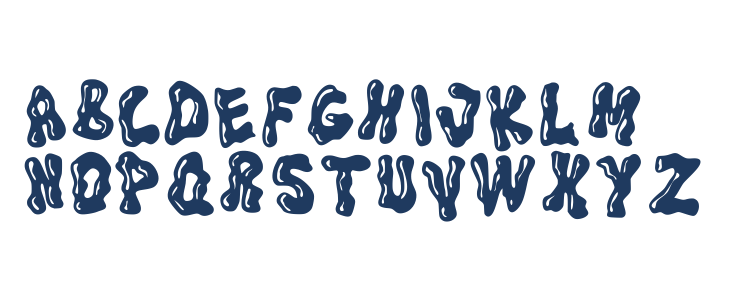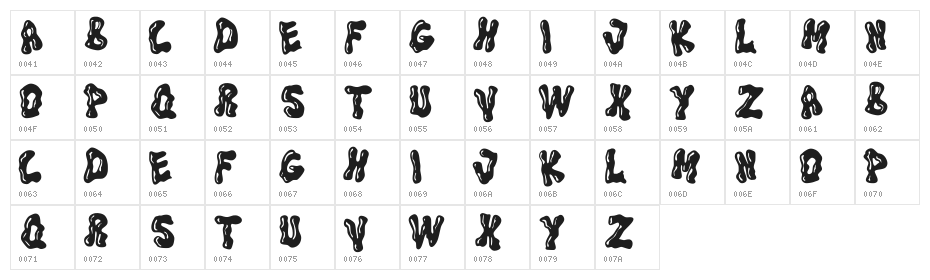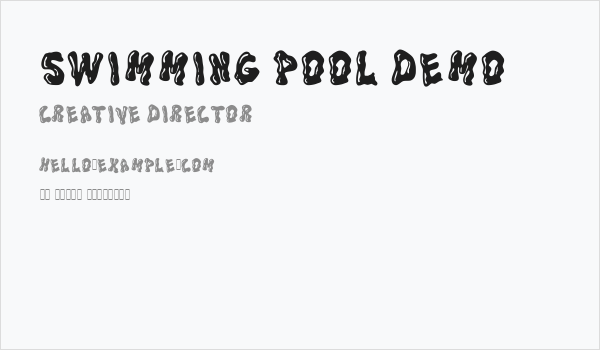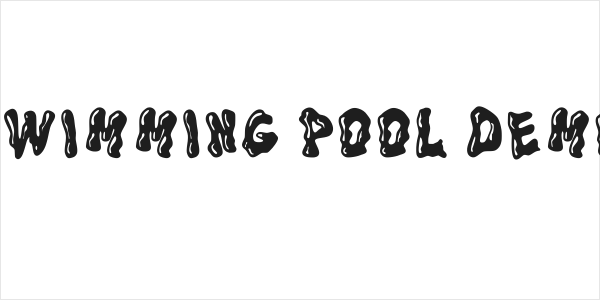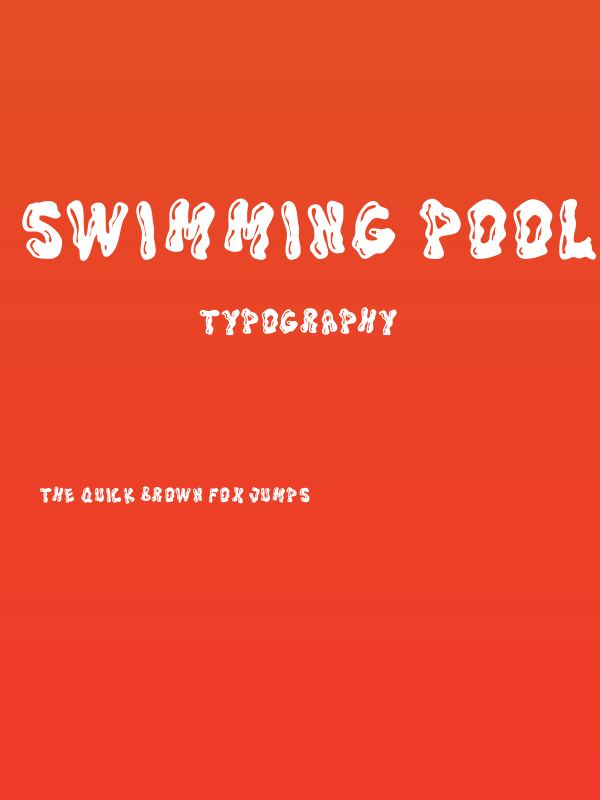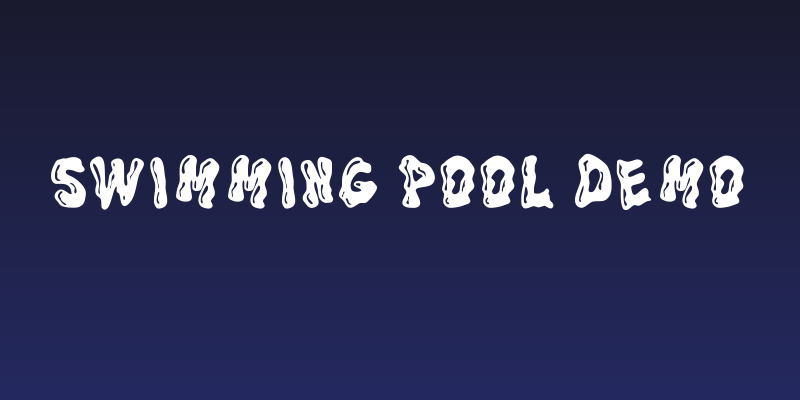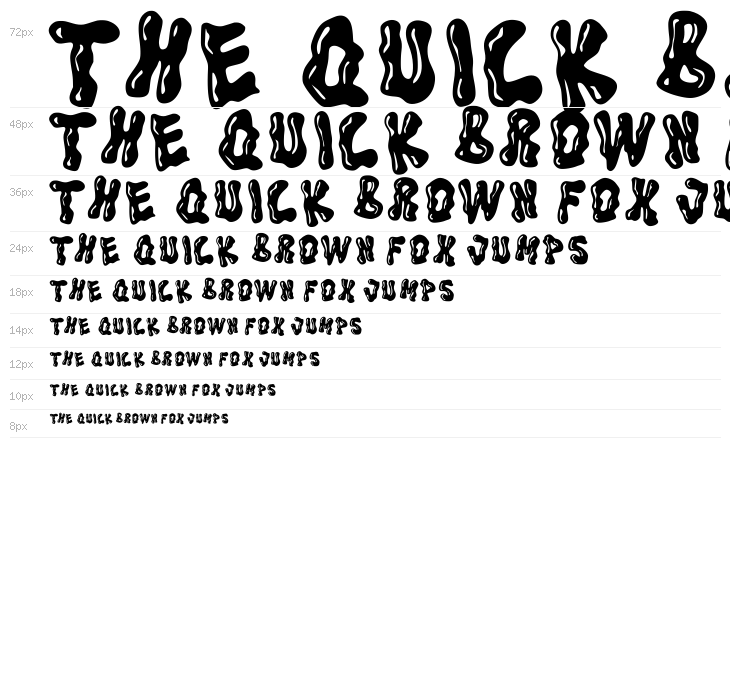
swimming pool demo Font
swimming pool demo Description
A playful, highly decorative display font with irregular, wavy contours resembling liquid or melting forms. The characters are bold, organic, and have a hand-drawn, fluid appearance, making each letter unique and visually dynamic.
| Overall Style | Decorative, Playful, Organic |
| Use Case | Headlines, Posters, Logos, Event Graphics |
| Proposed Projects | Posters, party invitations, event branding, album covers, children's books, creative advertising. |